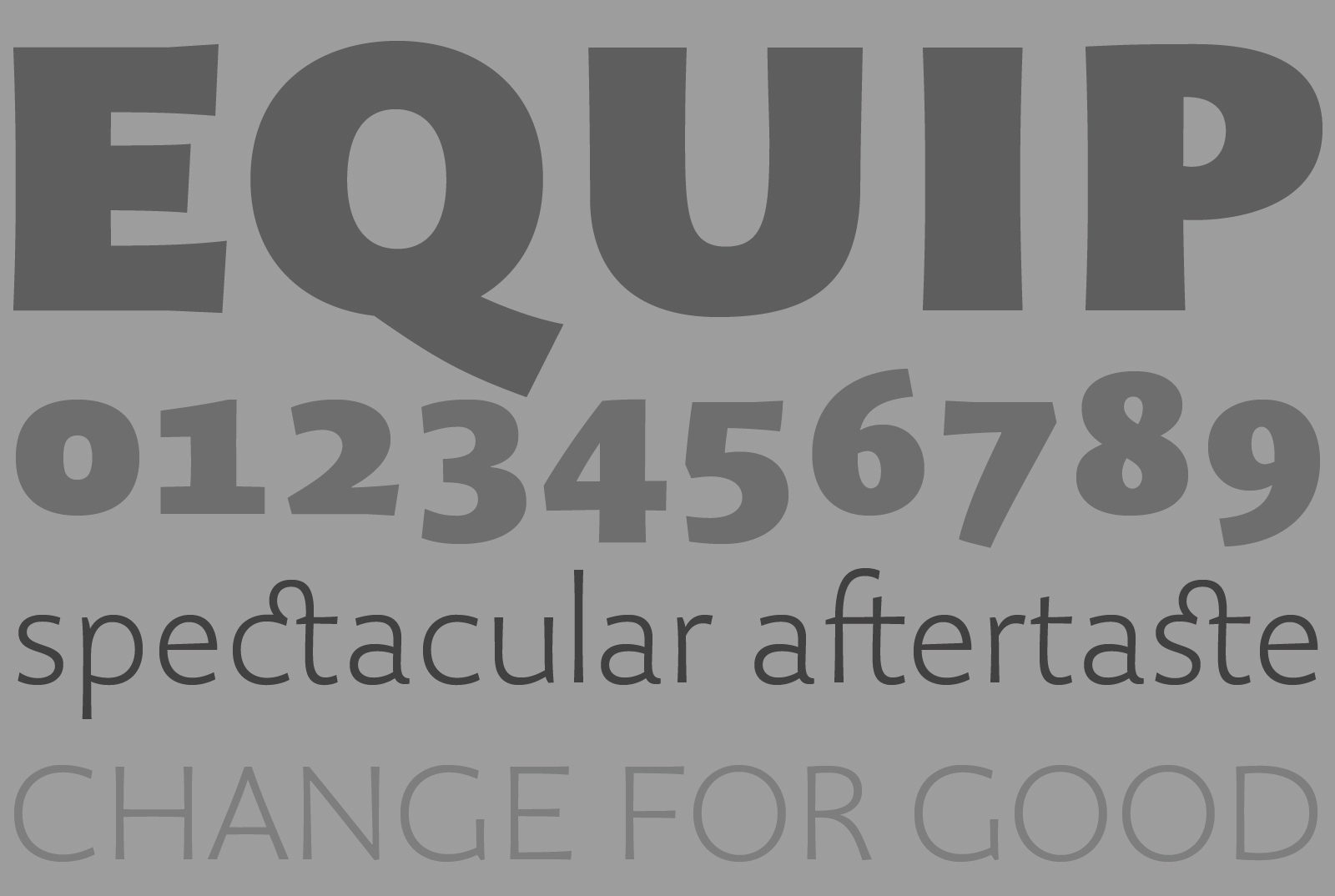
Organon Sans
Organon Sans is a refreshingly characterful sans serif with sturdy, tapered stems and distinguishable quirks, one half of the Organon set alongside close relative Organon Serif.
Both Organon families work in tandem to create an elegant, legible and thoughtfully designed suite of fonts which share similar metrics and stem widths.
Flared stems give the Organon Sans fonts an attractively robust appearance. A well stocked glyph palette includes multiple ligatures and both lining & old style numerals in proportional and tabular widths.
Take a close look and you’ll appreciate the carefully crafted letterforms & excellent legibility which is enhanced by the typeface’s generous spacing.
The family has six weights running from Light to UltraBlack and includes a small caps set and OpenType features such as 3 style sets and case sensitive forms.
Organon Sans is definitely one of the hidden gems in the G-Type library, a family designed to perform well in tandem with sister typeface Organon Serif, both sharing similar characteristics & metrics.
Organon Sans is great when paired with Organon Serif
Organon Sans contains an extended Latin character set with small caps, stylistic alternates, standard & discretionary ligatures plus proportional & old style figures.